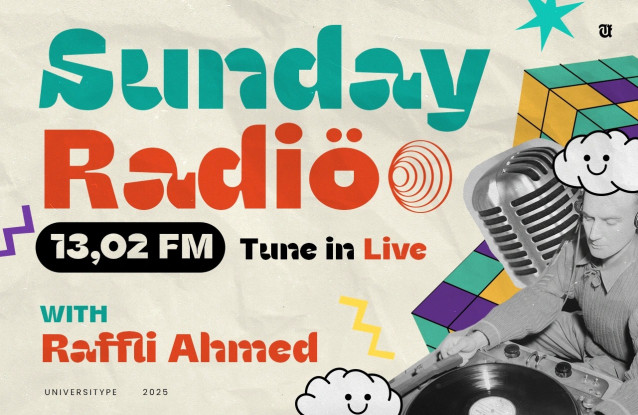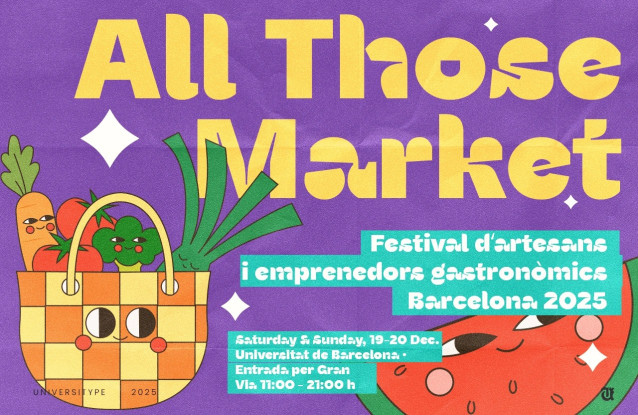
UT Ogea Display Font
UT Ogea Display Font is a lively display font that brings bold energy and playful character to any project. With chunky shapes, quirky angles, and a geometric yet friendly design, Ogea is made for creatives who want their words to stand out. Inspired by childhood joy and vibrant doodles, it’s the perfect choice for posters, branding, social media, or any design that calls for fun. Packed with multilingual support and unique alternates, Ogea makes your text not just readable, but unforgettable. Whether for digital screens or print, Ogea turns your message into a joyful visual statement.